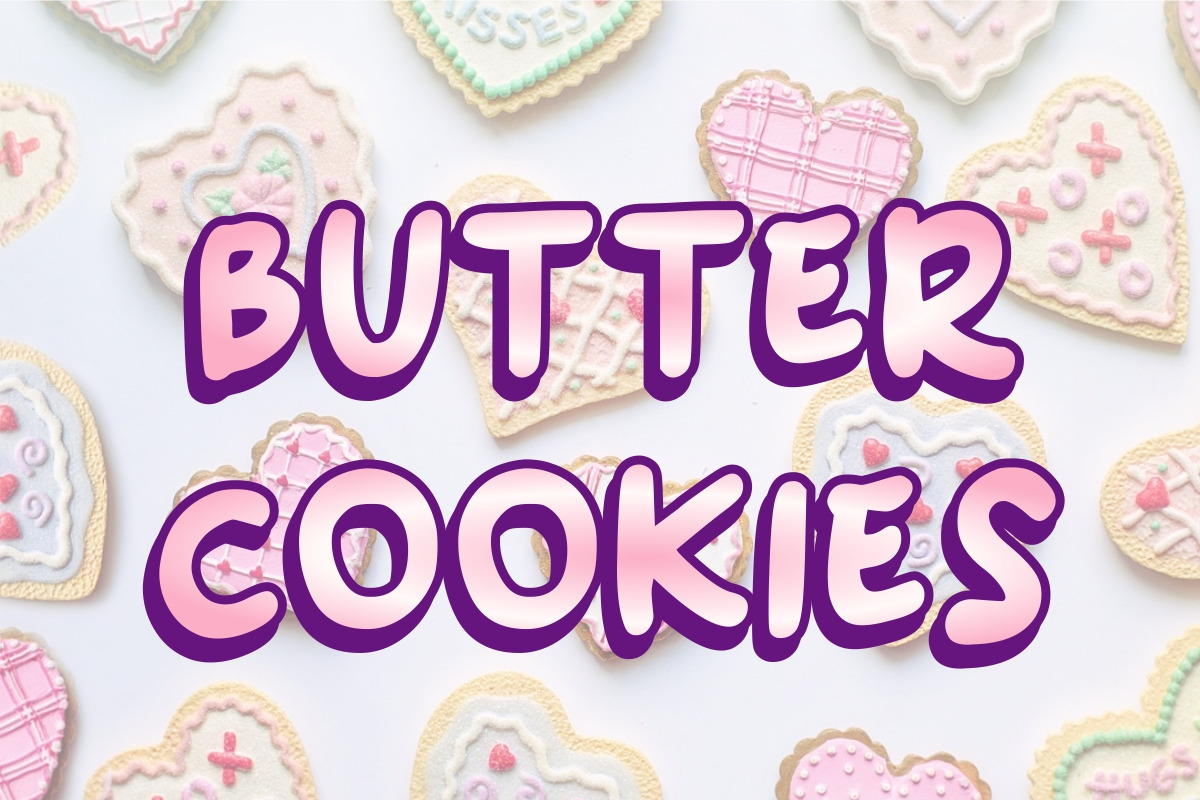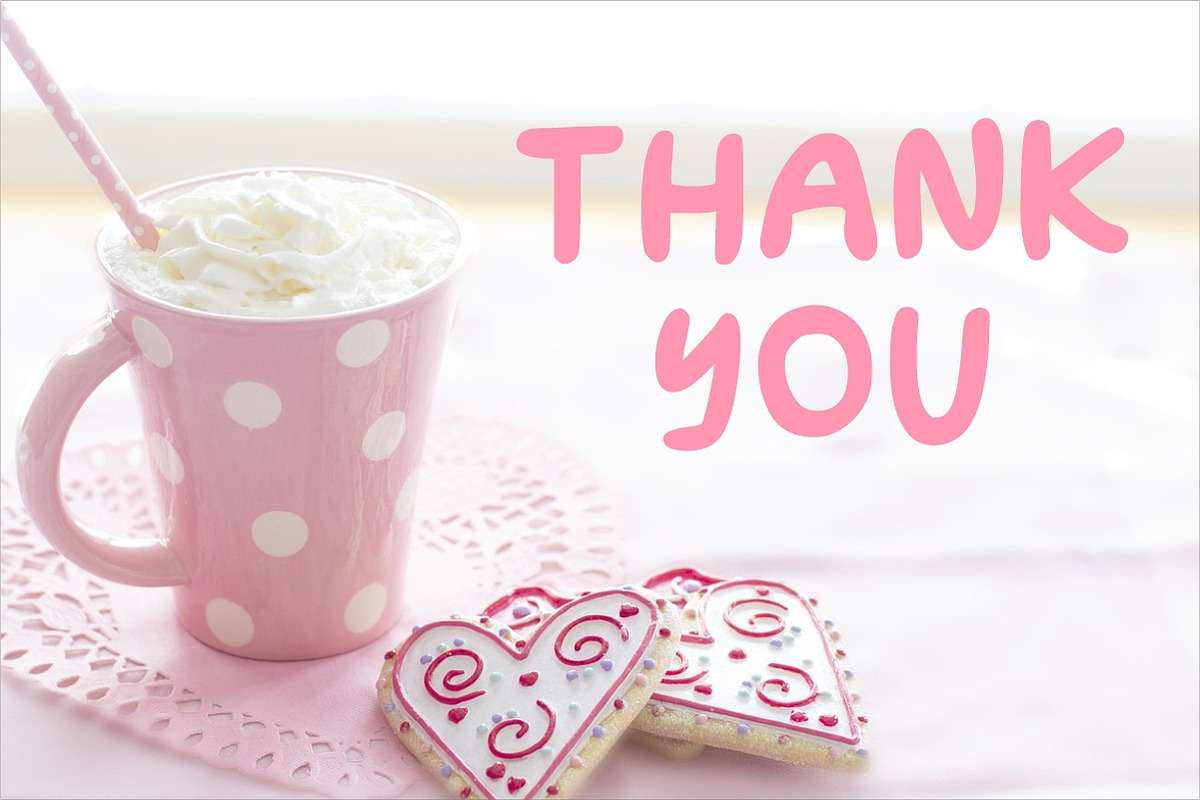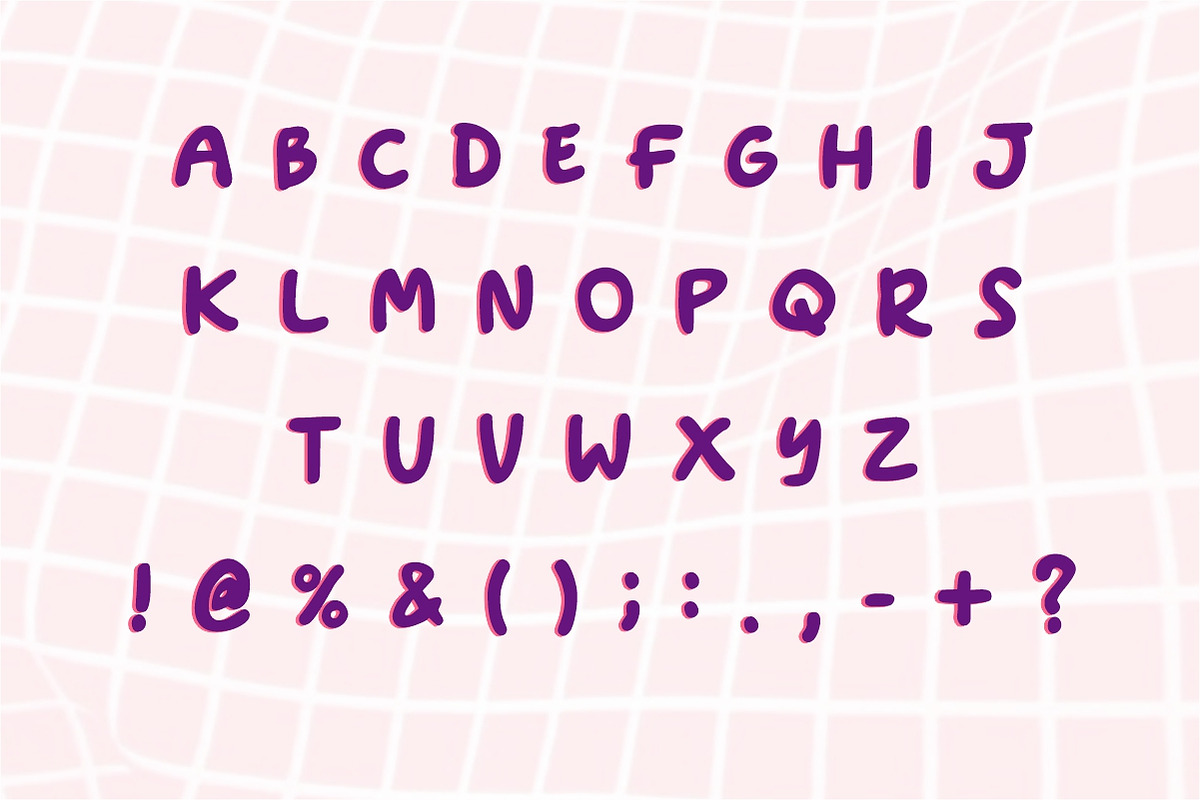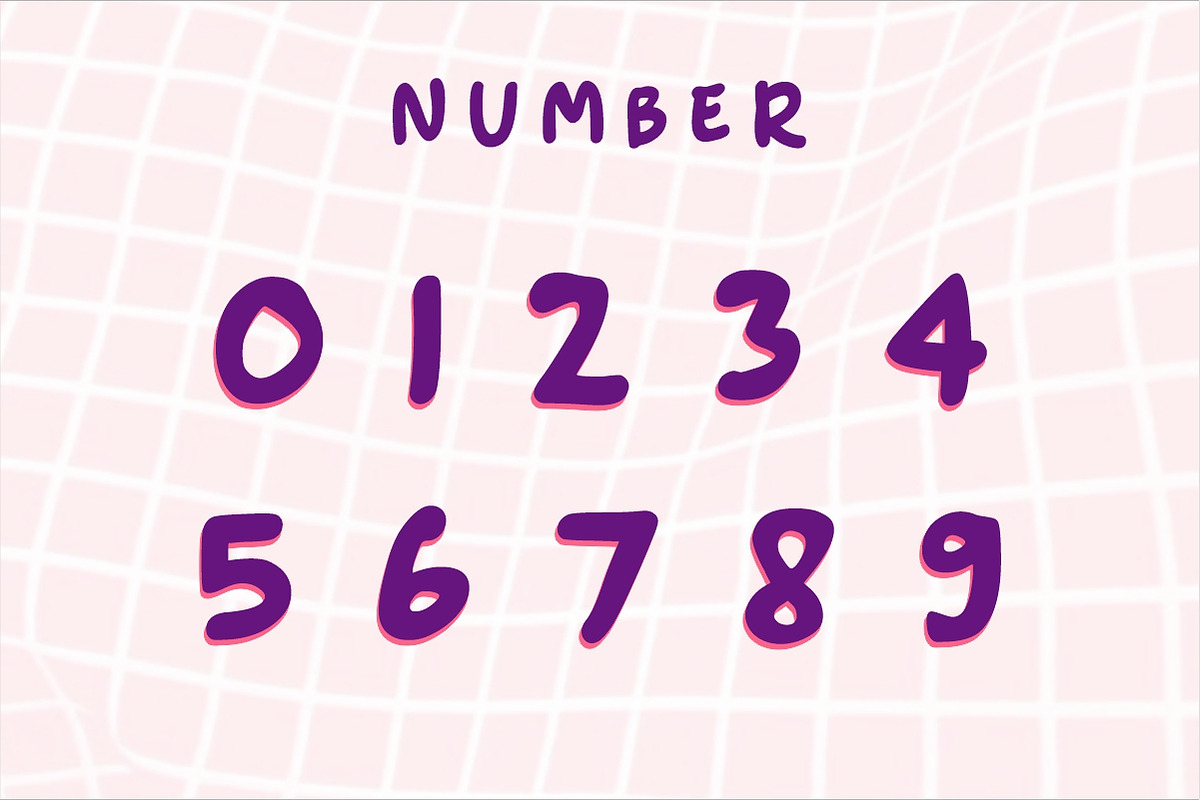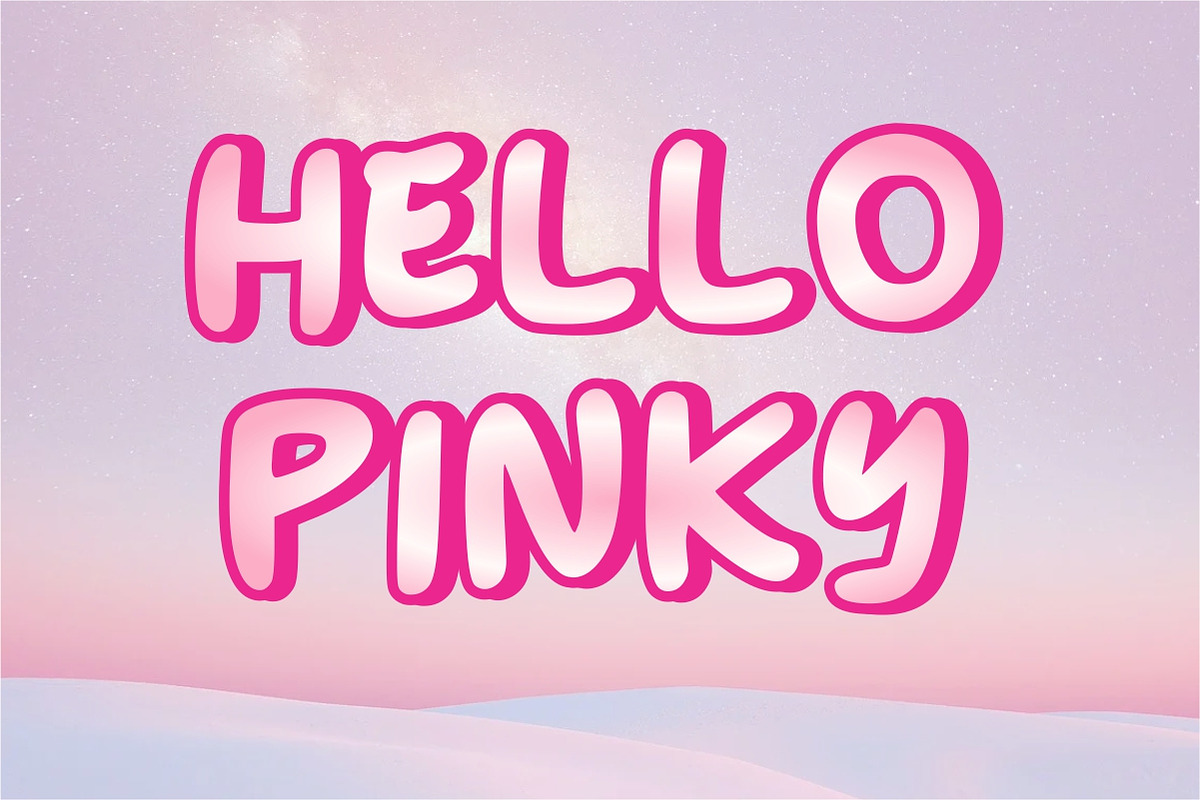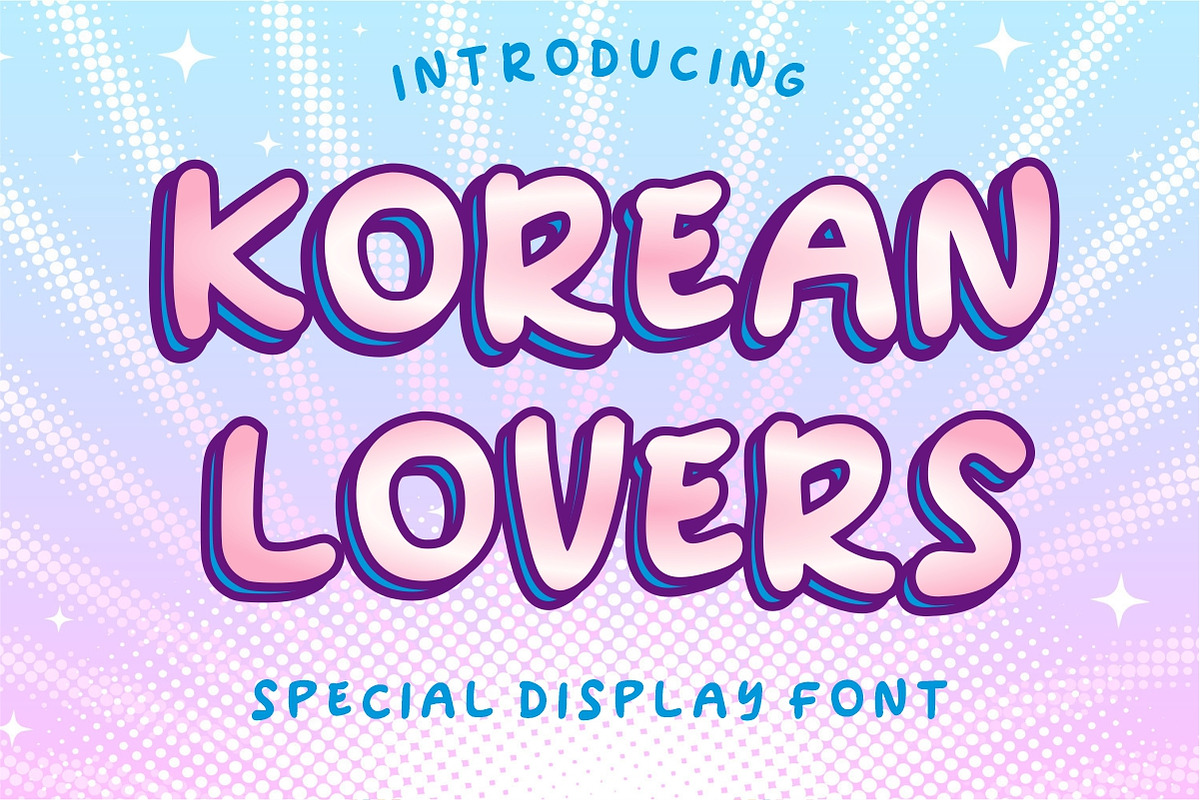
Korean Lovers
“Korean Lovers”, an authentically enchanting Display Font. It effortlessly exudes a whimsical charm, infusing joy and fun wherever used. This impressive font merrily sits on kids’ t-shirts, adding a playful touch to their apparel. With multilingual support, it extends its warmth beyond barriers, gracefully accommodating Eastern European accents. Clean and vibrant, “Rainbow of Friendship” is a winning choice for designing cards, magazines, and greeting cards. It breathes life into quotes, elevating brand designs with its unique flair.